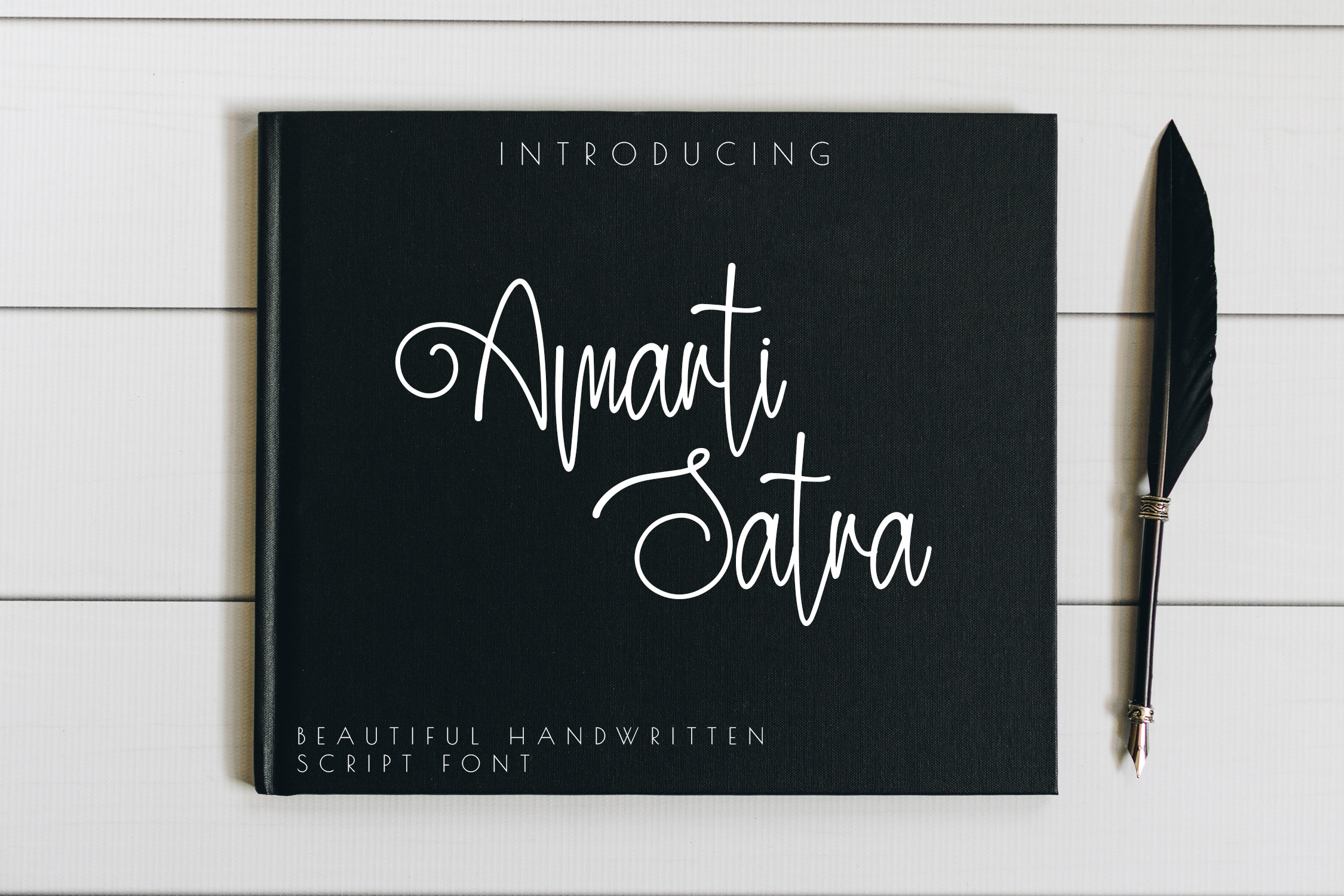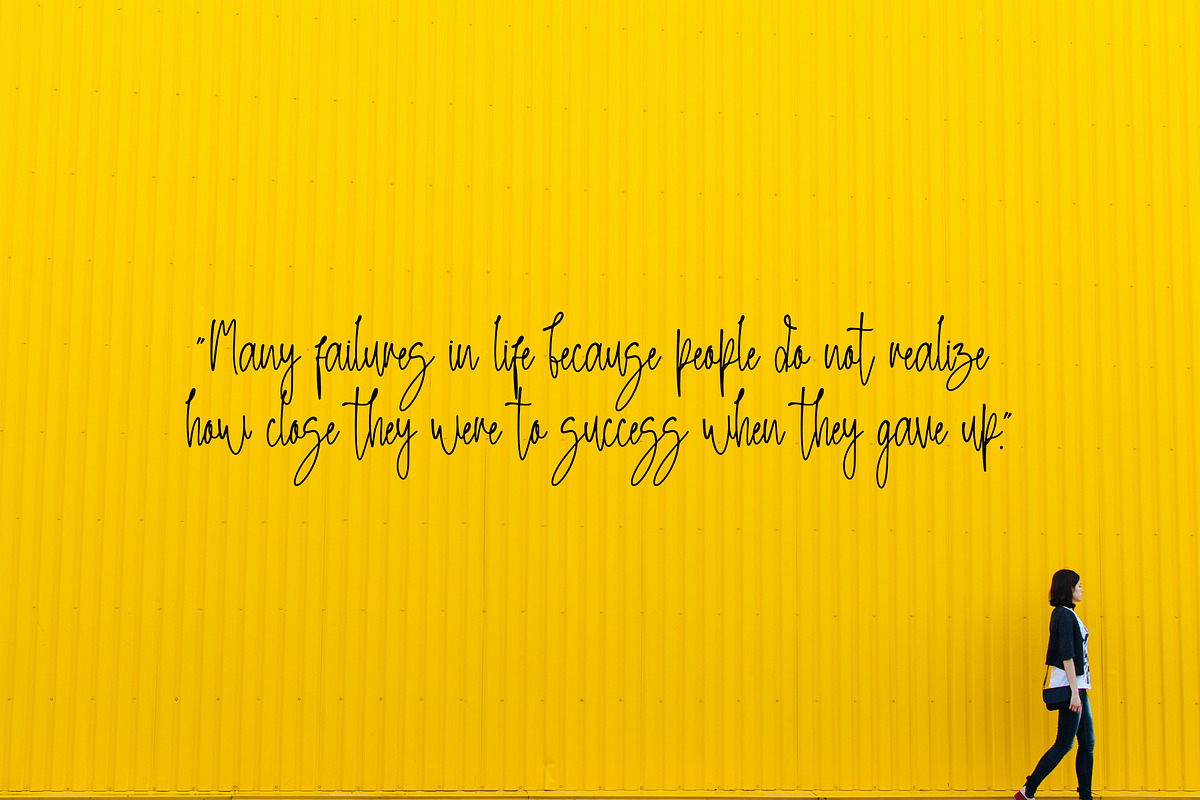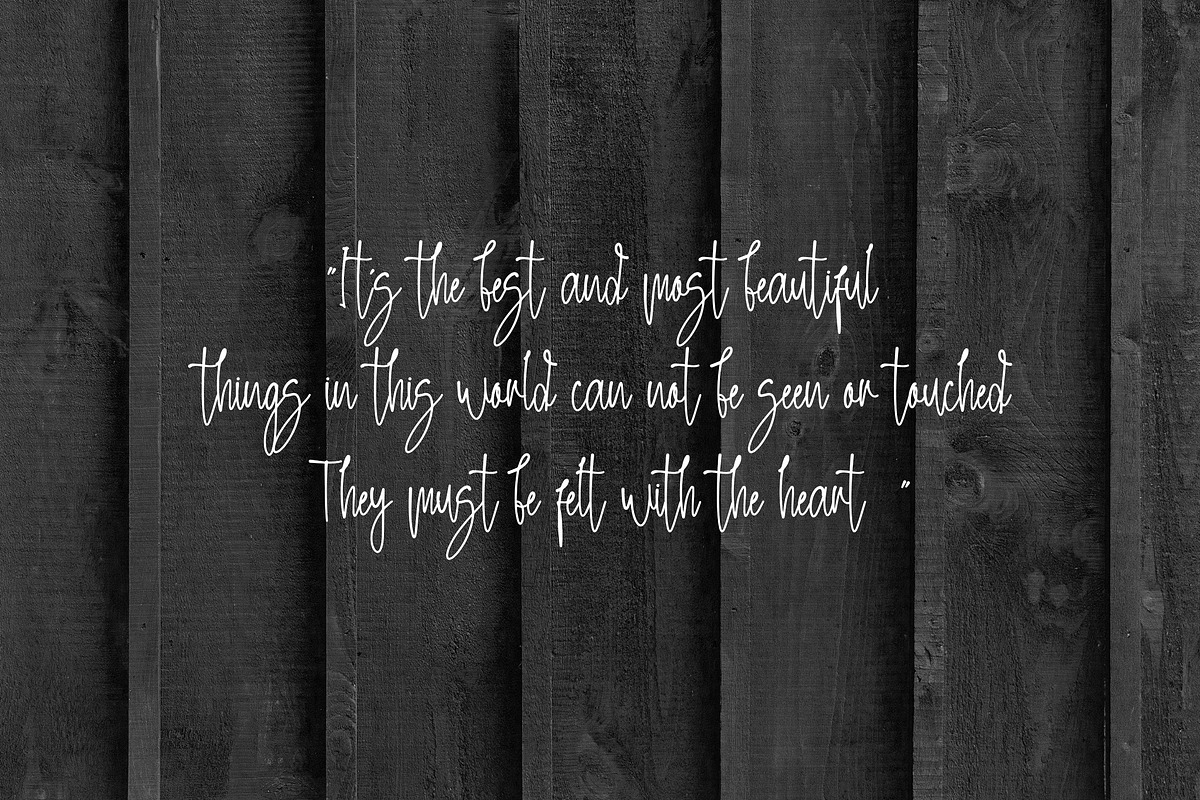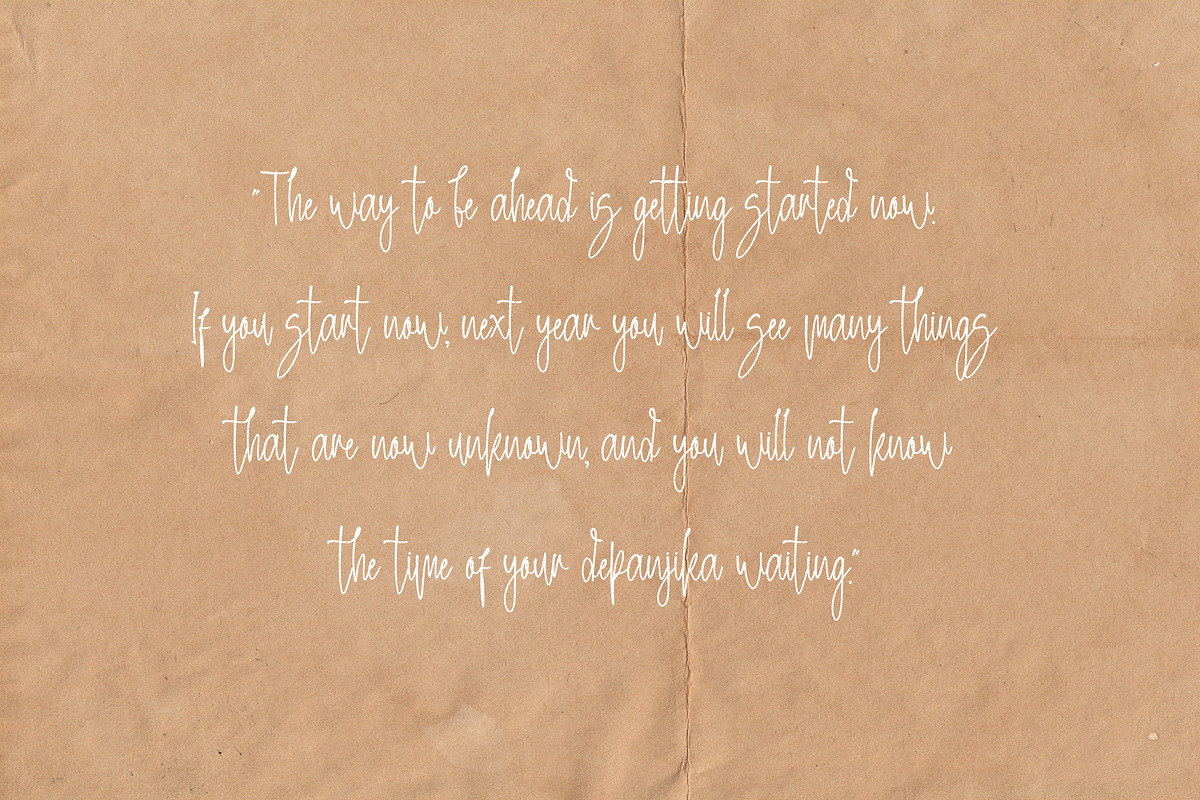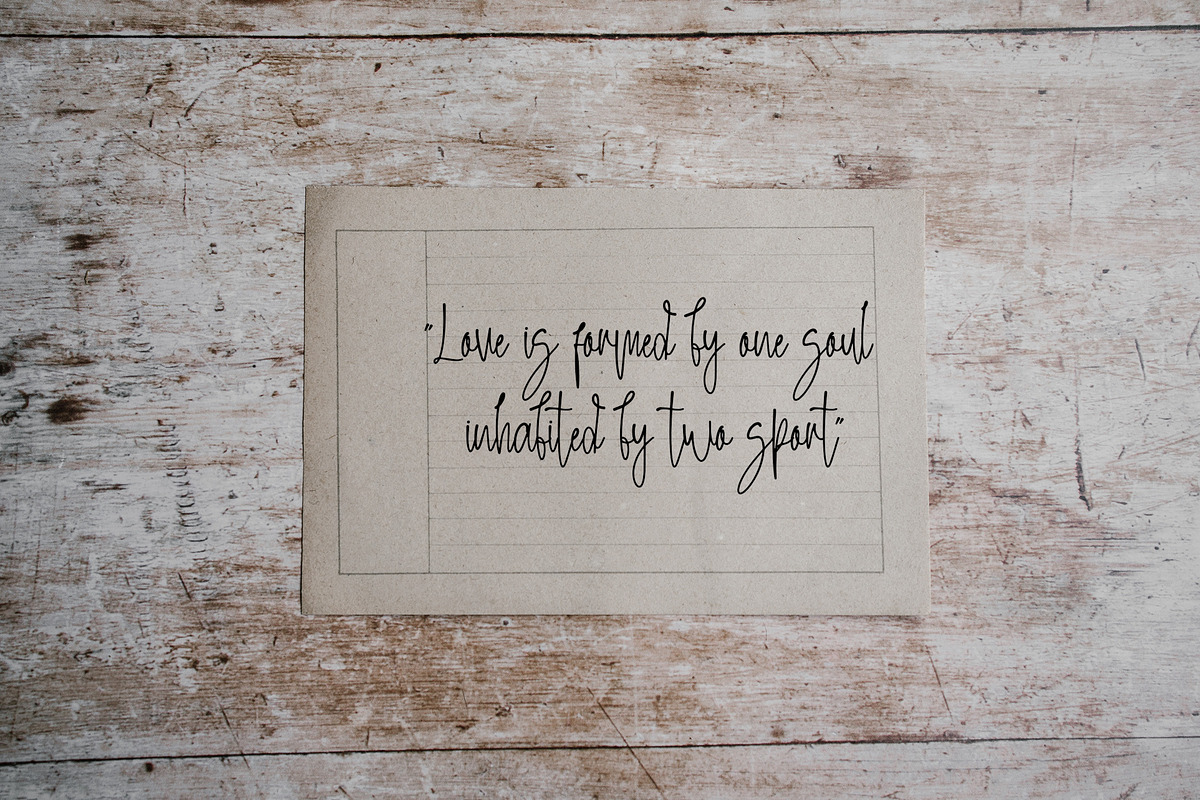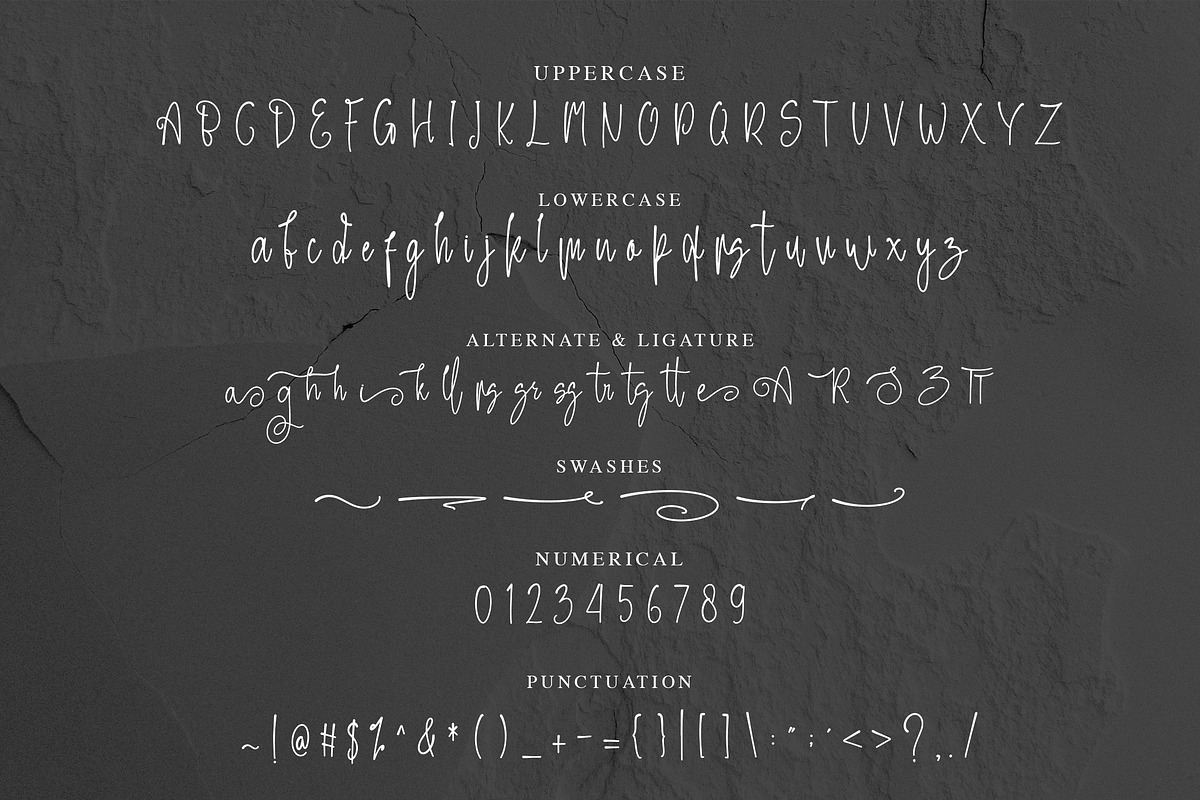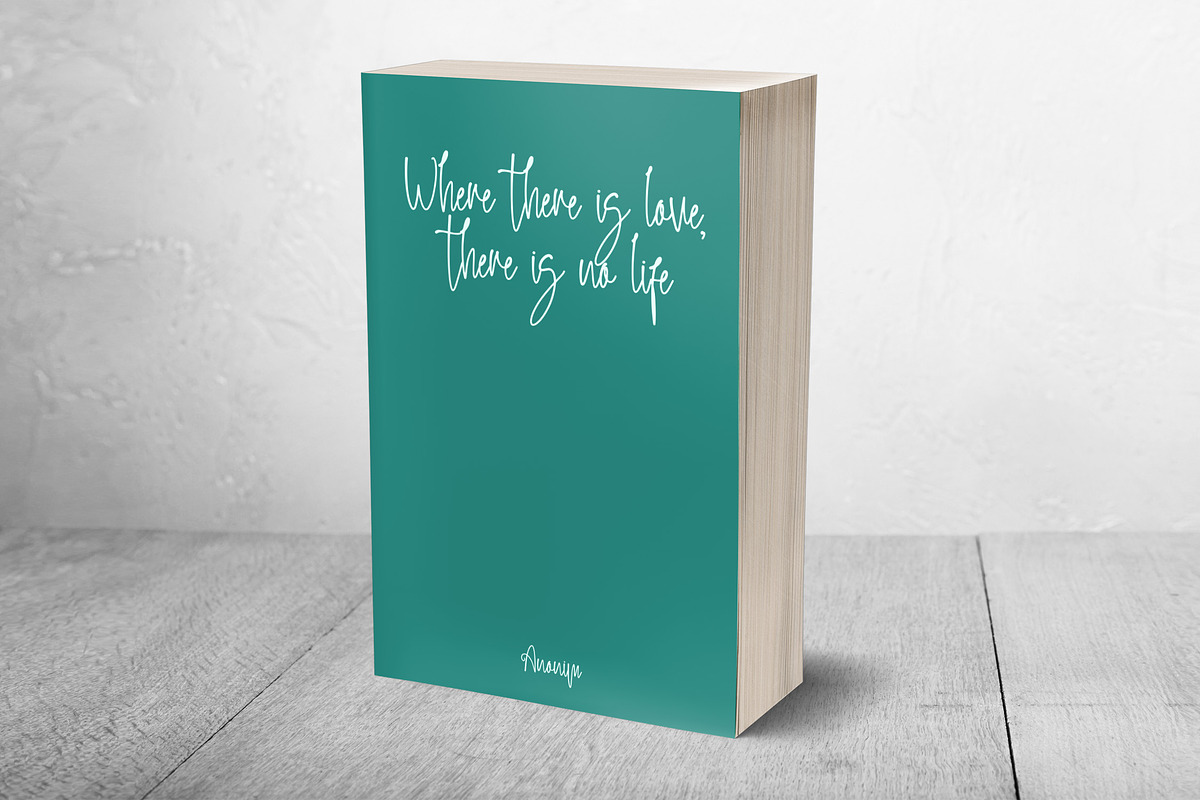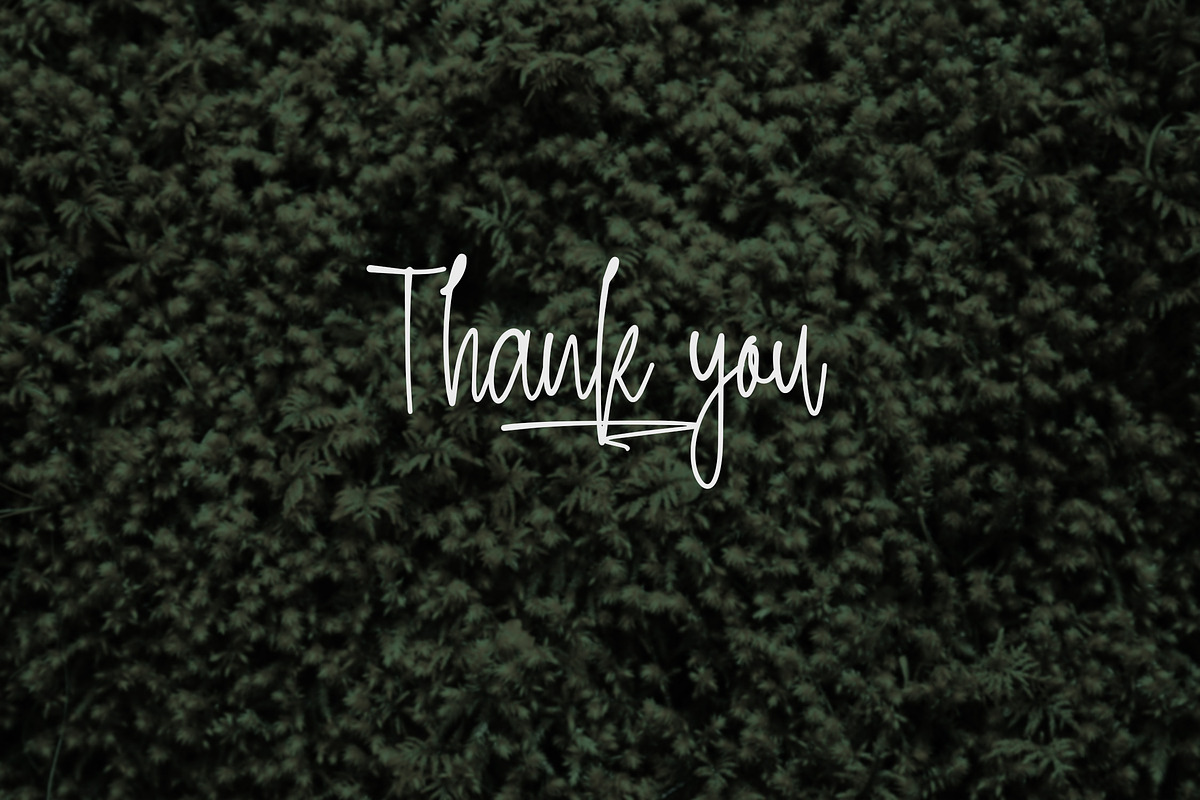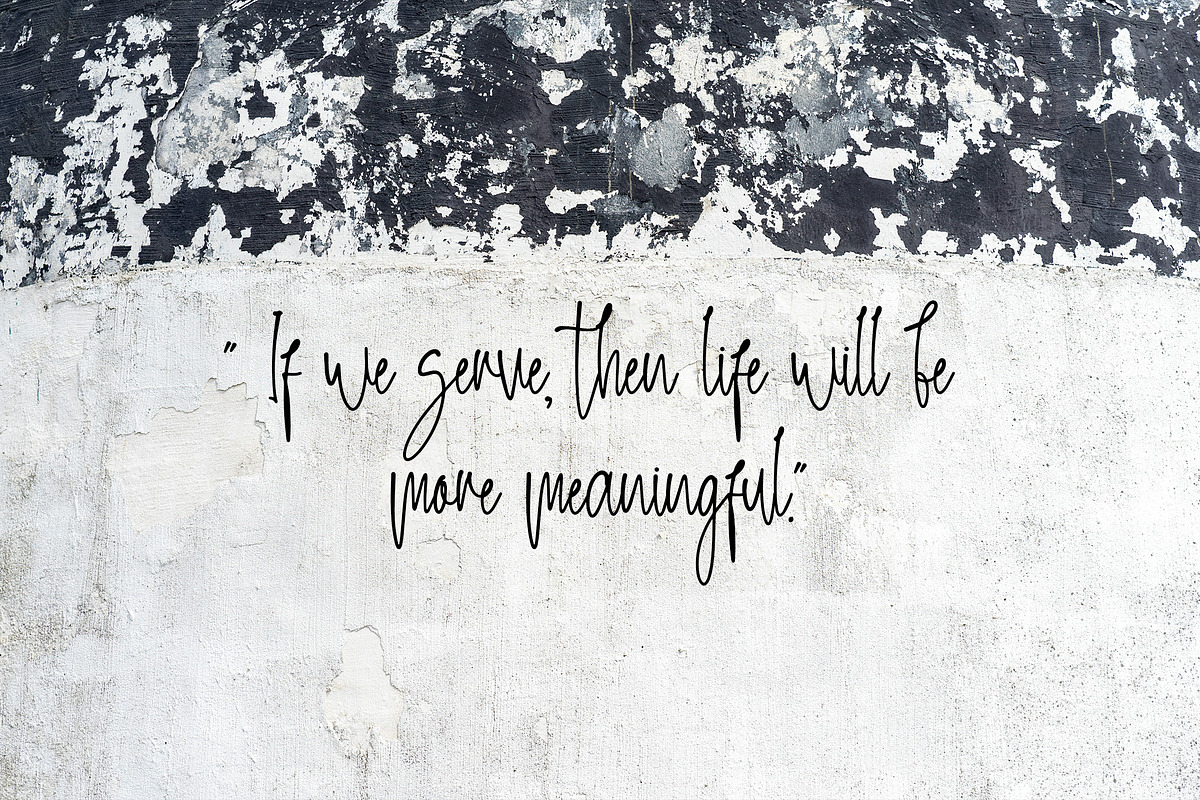
Amarti Satra - Handwritten Font
DETAILS
Amarti Satra is a beautiful script font with a handwritten feminine style. Is a font style that is made with scratches and curvature shapes font characters are very beautiful. Can be applied to support the graphic appearance of the product to be more attractive and unique. This font is suitable for making previews and covers, logo designs, shirt designs and other graphic needs.
Amarti Satra font with uppercase characters A-Z, lowercase characters a-z, punctuation, swashes, stylistic alternate and ligature characters that enhance this font shape.
-Ligature
-Stylistic Alternate
-Swashes